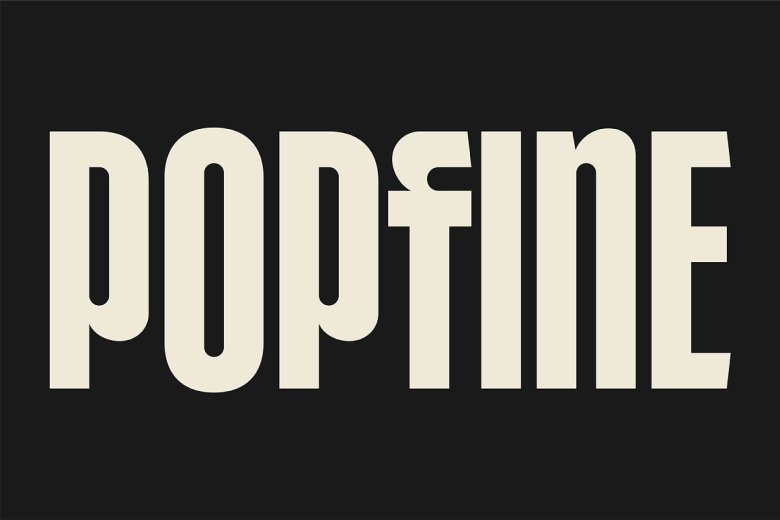
Popfine Font
Popfine is font from the category Display Fonts. It is used in two forms: regular and italic fonts or in other words, one can say, the kerned and the non-kerned. An awesome font to help you your artistic things like branding, titles in the film, packaging, advertisements, postcard, and web or applications.
Popfine Display Font